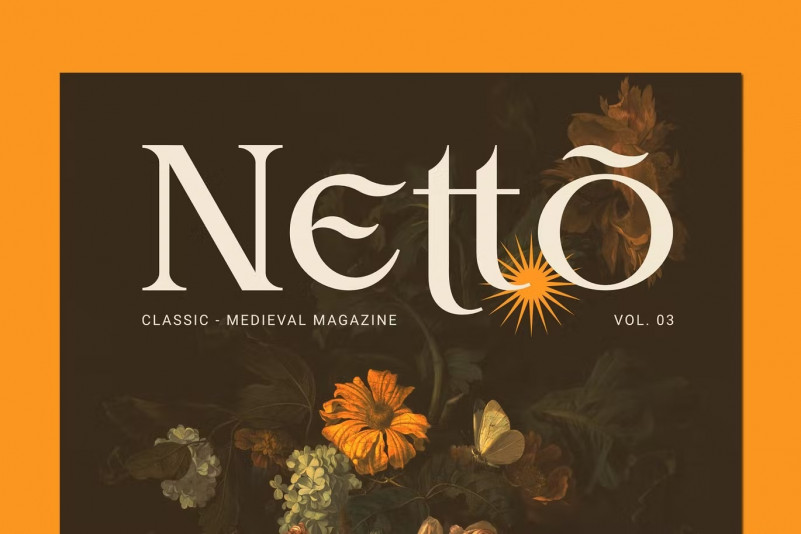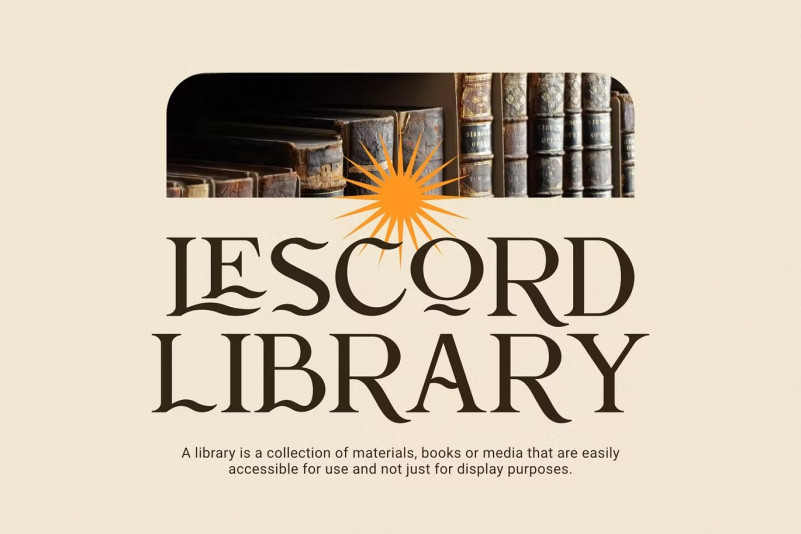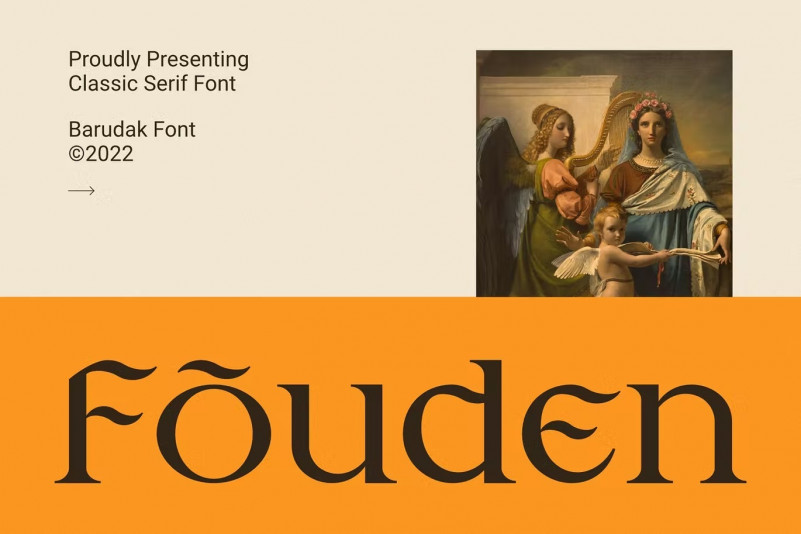
Fouden Font
Fouden – Display Serif Font. You can creatively edit and use this illustration set on merchandise, logo, sticker, patches, badge, and many more.